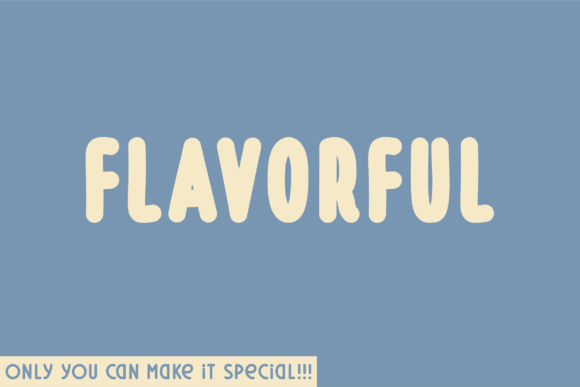
Unleash your creativity with Flavorful Font, the captivating sans serif font that sets you apart! Step into a world of elegance and uniqueness with every character lovingly crafted by Hanna Bie, preserving each indentation without alteration. A font that oozes authenticity, Flavorful breathes life into your designs, whether it's an Instagram bio, a heartfelt quote, or a product label.
With its genuine and charming aura, Flavorful seamlessly blends with your creations, adding a touch of intrigue and originality. The perfect harmony between sophistication and innovation makes Flavorful the ideal choice for those who dare to stand out.
Express yourself with effortless style, turning ordinary designs into extraordinary masterpieces. Elevate your notes, tees, and product designs with a font that captivates and captivates. Join the league of creative visionaries who embrace the beauty of uniqueness and let Flavorful add a dash of enchantment to your artistic journey.
Engage your audience with Instagram bios that pop! The distinct curves and delicate lines of Flavorful transform your bio into an unforgettable statement, inviting followers to dive into your world. Craft quotes that resonate, leaving a lasting impression with every word.
Experience the joy of creating with a font that ignites your imagination. Flavorful Font, with its natural charm and magnetic charisma, is ready to take your designs to new heights. Embrace the extraordinary and craft a legacy of creativity that sets you apart from the ordinary.
So, dive right in, let your imagination run wild, and let Flavorful Font guide you towards your creative destiny!